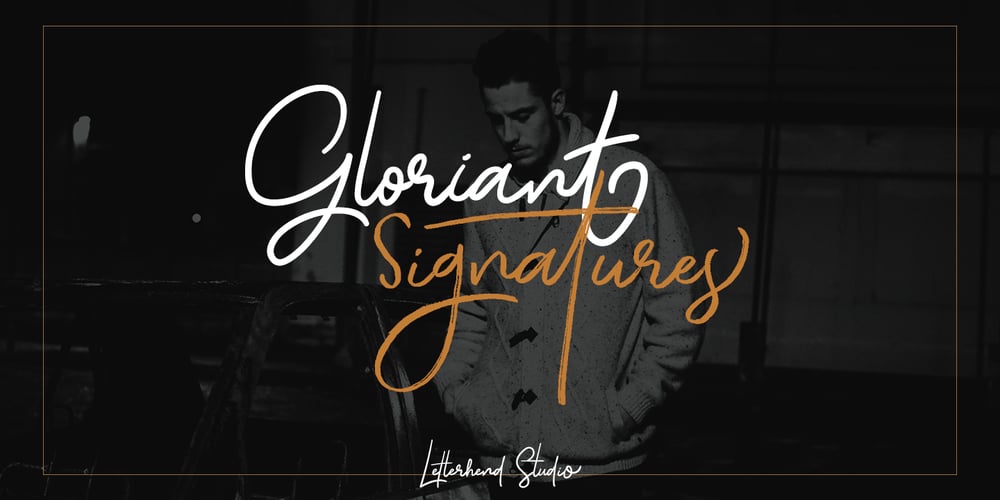
Gloriant
Gloriant font
Gloriant Font Family was designed by Hendry Juanda and published by Letterhend. Gloriant contains 2 styles and family package options. Introducing Gloriant Signature Script Font with two styles : clean and brush! Both of them looks nice and elegant, naturally made by handwriting. This font is suitable for any design purposes such as logos, headlines, quotes, apparel, wedding invitations, and of course as your digital signature. Gloriant Signature comes with OpenType features like ligatures, stylistic alternates, contextual alternates, swashes, and multi-language support. We hope you enjoy the font, please feel free to comment if you have any thoughts or feedback. Or simply send me a PM or email me at letterhend@gmail.com. Thanks for purchasing and have fun!